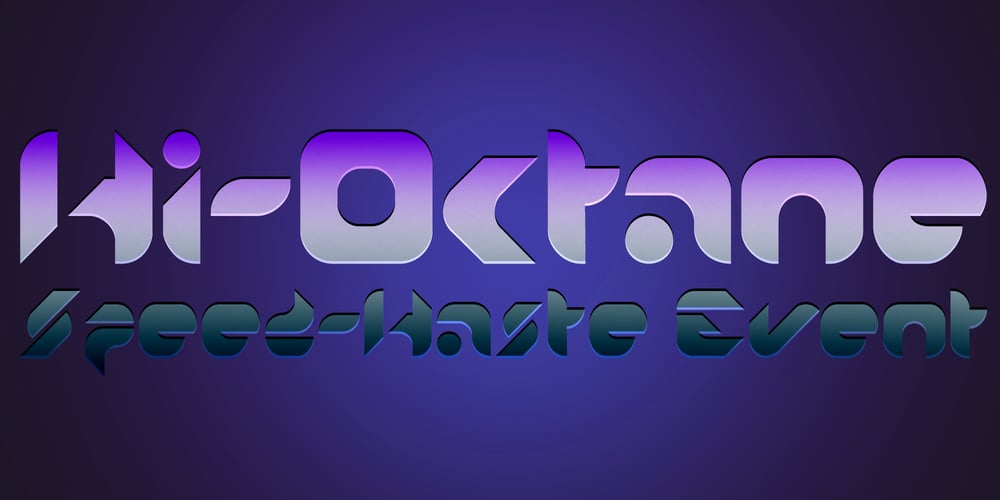
Multiverse
Multiverse font
Multiverse Font Family was designed by Tamas Greguricz and published by Tamas Greguricz. Multiverse contains 1 styles and family package options. Multiverse is a display typeface designed to combine retro and futuristic styles into one package. Its geometric characters intertwine in unique ways that can support a high-tech context, but its curves and boldness echo the sci-fi of the 70’s and 80’s.